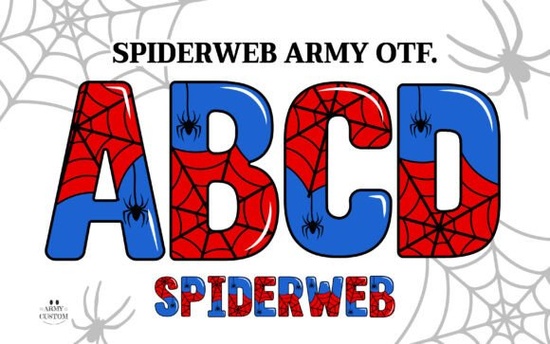
If you’re looking for a font that adds a touch of eerie elegance without being over the top, the Spiderweb Army Font might be just what your next project needs. Whether you’re designing Halloween merch, crafting spooky invitations, or personalizing apparel with a gothic twist, this font brings texture and mood in a way standard typefaces can’t. It’s not just another decorative font it’s built with layered details that mimic delicate spiderwebs, giving your text an organic, hand-crafted feel.
What makes this font different from other Halloween-themed fonts?
Most seasonal fonts rely on jagged edges or cartoonish drips to signal “spooky.” Spiderweb Army Font takes a quieter, more artistic route. The color version (OTF) uses OpenType SVG technology to layer translucent web-like strokes over each letter, creating depth without overwhelming your layout. Think of it like adding lace to a dress subtle, but instantly elevating.
It pairs especially well with minimalist designs. Try it over dark backgrounds or paired with clean sans-serifs for contrast. If you’ve ever used Marvel Brothers Font, you’ll appreciate how Spiderweb Army offers a completely different vibe less comic-book bold, more atmospheric whisper.
How do crafters and small businesses use this font?
Here’s where it gets practical. Sellers on Etsy, Redbubble, or Shopify have found clever ways to put Spiderweb Army Font to work:
- Halloween product lines think mugs, stickers, and totes with phrases like “Boo Crew” or “Witch Please” styled in the webbed letters.
- Event signage haunted house posters, escape room branding, or party invites gain instant atmosphere.
- Personalized gifts monogrammed journals, engraved wood signs, or custom pet tags with names wrapped in delicate webs.
- Digital templates planners, social media graphics, or printable decor kits that stand out in saturated seasonal markets.
One seller told us they layered the PNGs behind handwritten script fonts to create “enchanted diary” covers customers loved the mystical texture without needing special software.
Any tips for getting the most out of this font?
A few things we’ve learned from users:
- Less is more. Because of its intricate detail, Spiderweb Army shines when used for headlines, logos, or short phrases not body text.
- Pair it wisely. Combine it with simple, bold fonts (like other color fonts in the collection) to keep your message readable.
- Test print contrast. On light backgrounds, bump up the stroke weight slightly so the web details don’t disappear.
Also don’t sleep on the black version. Even without color, the linework holds up beautifully for laser engraving, embroidery digitizing, or sublimation transfers.
Is this font worth it if I already own other decorative fonts?
If your current toolkit lacks texture-rich, seasonally flexible typefaces, yes. Spiderweb Army isn’t a one-trick Halloween pony. Its aesthetic works year-round for fantasy themes, mystery brands, apothecary labels, or even romantic gothic wedding suites. The web motif reads as elegant, not cheap or kitschy a rare balance.
Compare it to something like Marvel Brothers Font totally different energy, but equally niche. One’s punchy and pop-culture ready; the other’s moody and artisanal. Having both gives you range.
Start simple. Pick one project maybe a Halloween sticker sheet or a limited-run shirt design and let the font’s texture do the heavy lifting. You’ll know right away if it fits your style.